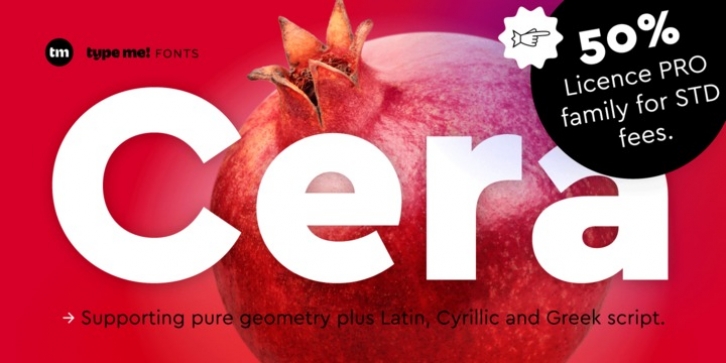
The pan-European typeface – designed between 2013-2015 – is supporting pure geometry plus Latin, Cyrillic and Greek script. With over 980 glyphs per weight Cera PRO cares about localized letter shapes plus ordinals and provides matching OpenType Features.
Equipped with six precise weights, a clean Italic – carefully slanted to 10 degrees – and useful dingbats plus arrows, Cera PRO is a good companion for setting clean text and headlines for print and screen in multiple languages and all its facets.
For the upright shapes there is a stencil version available as well.